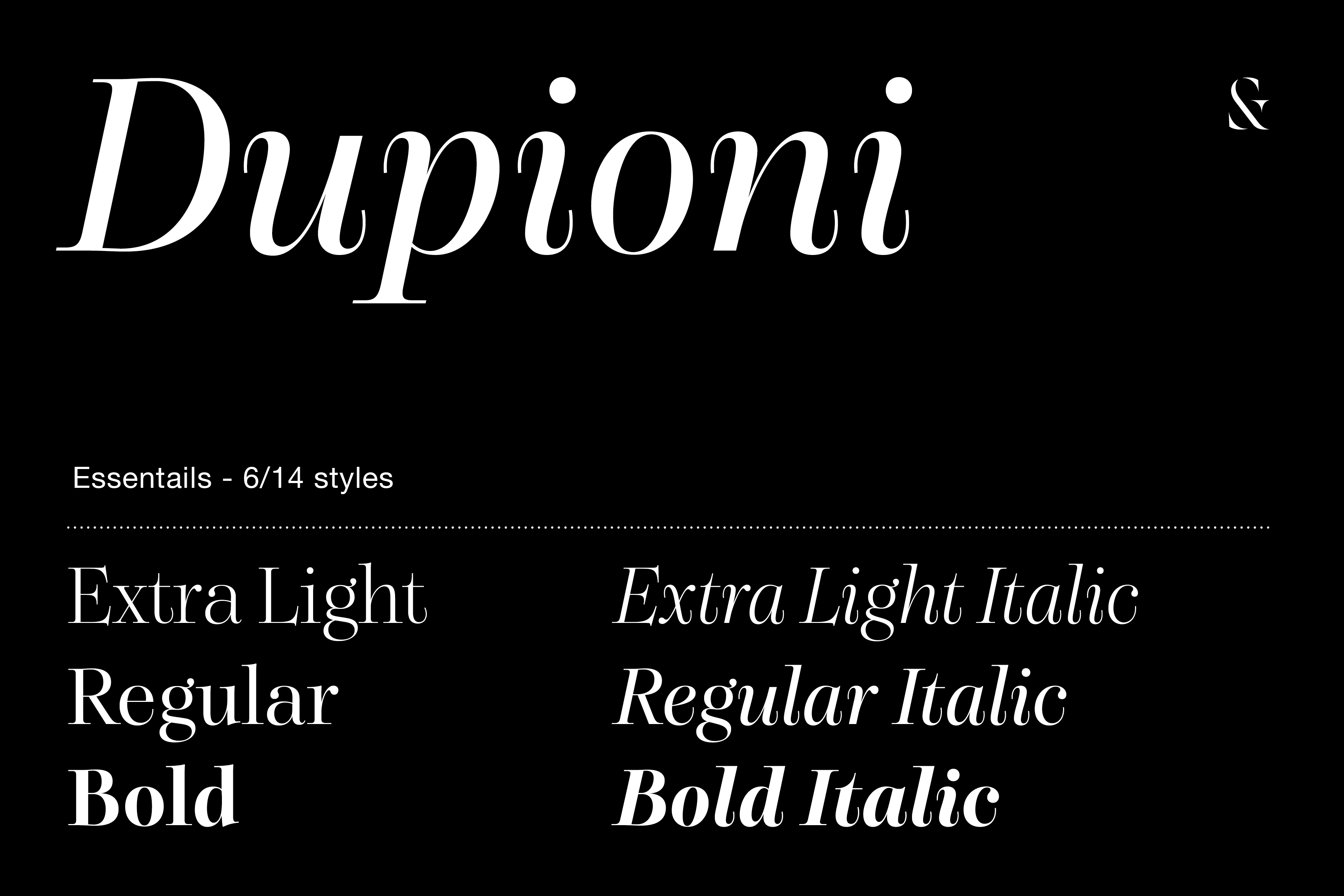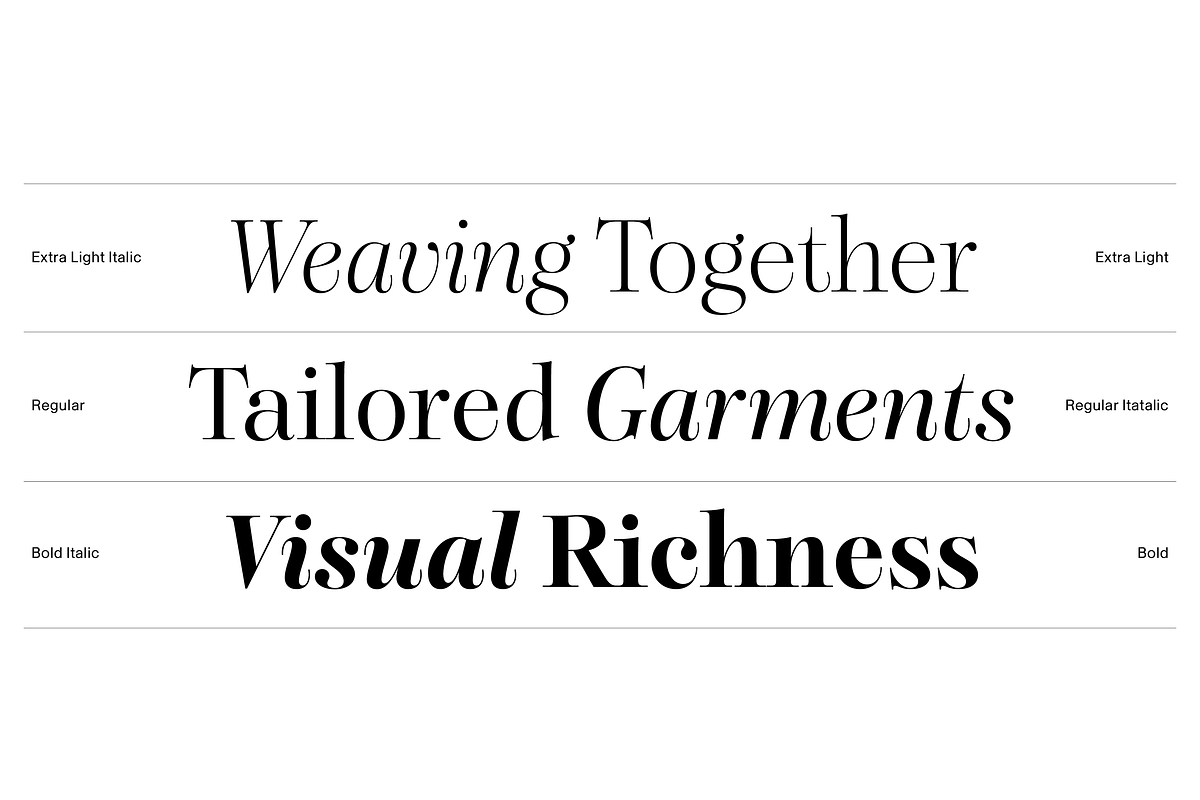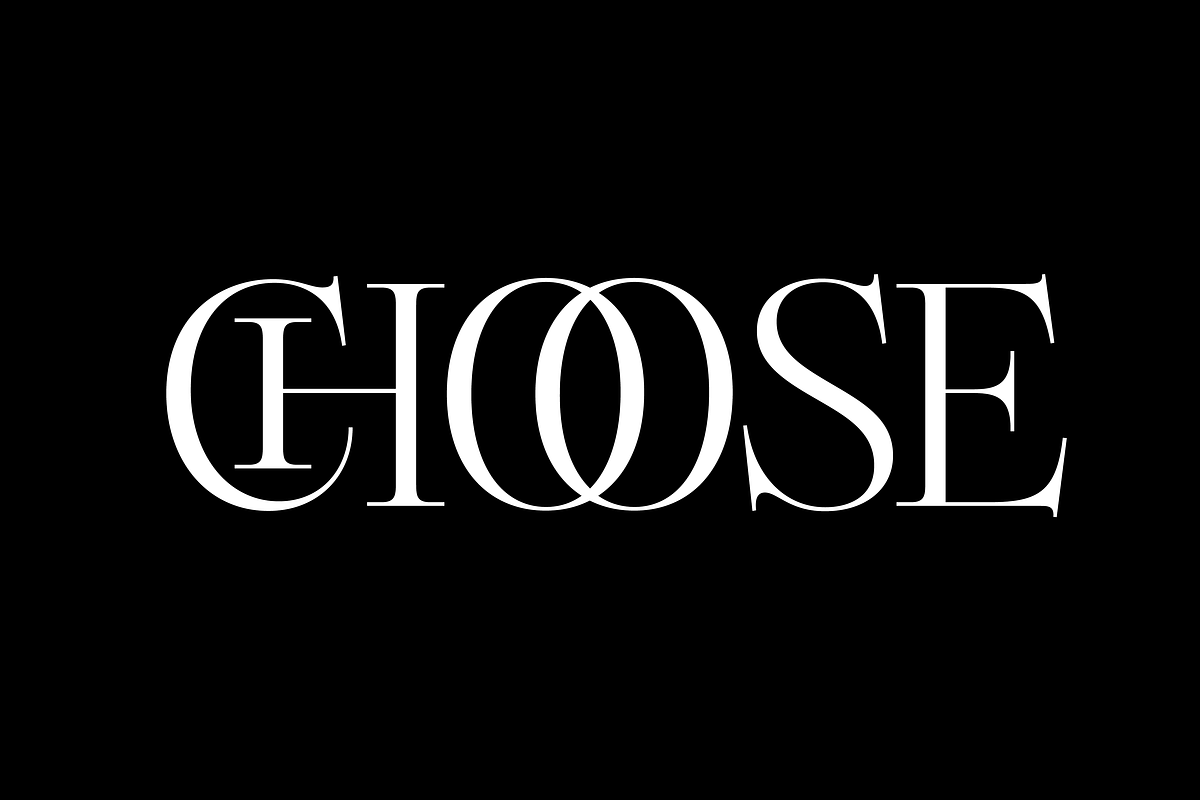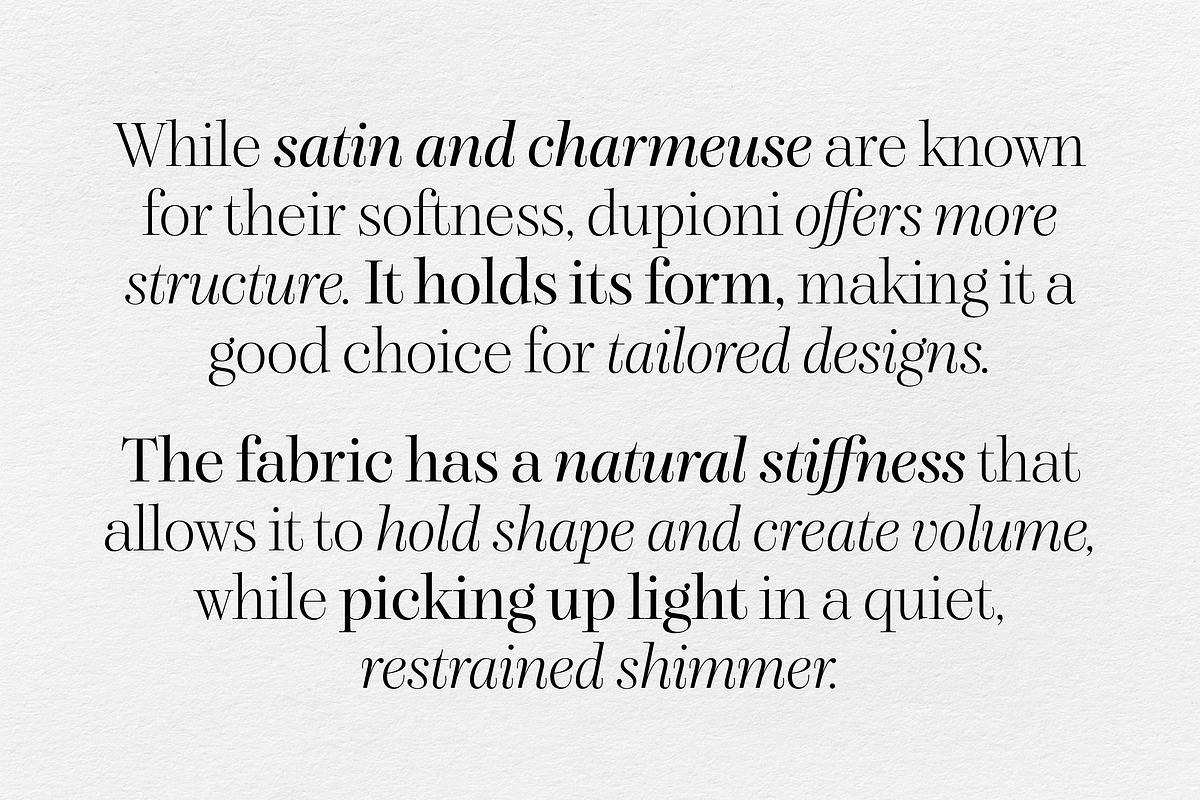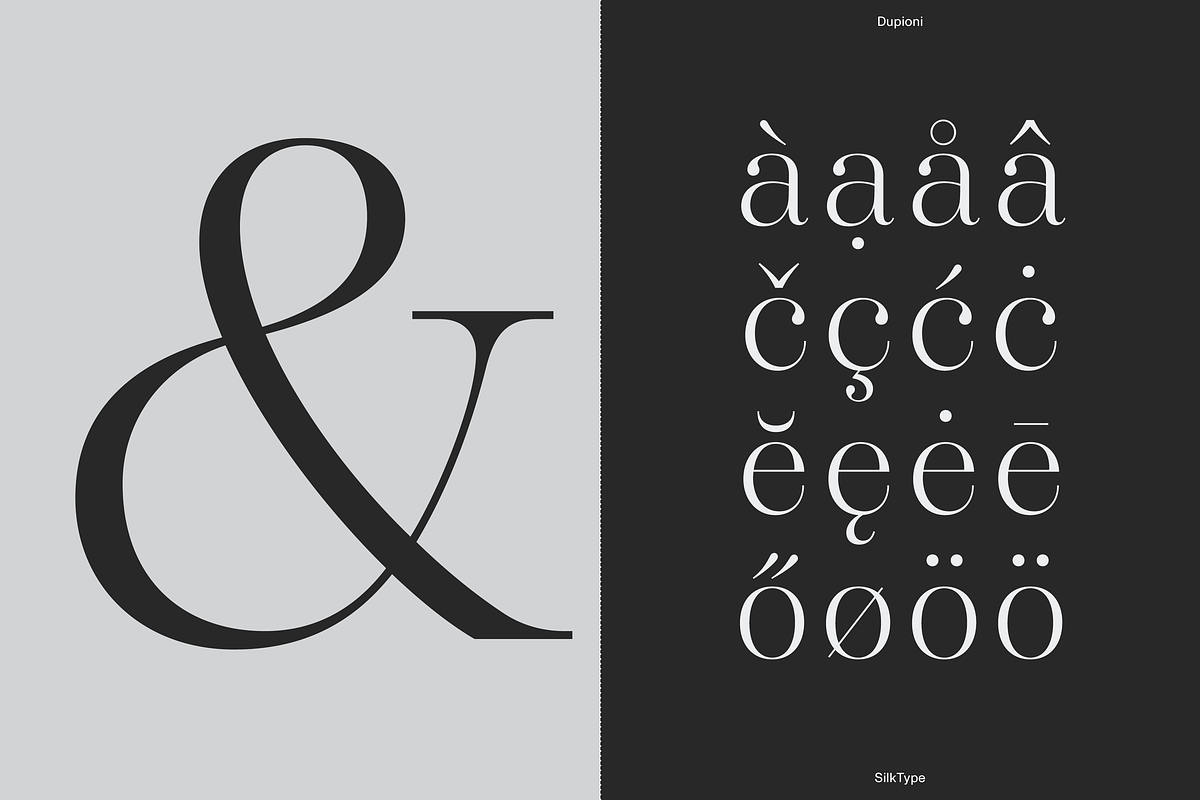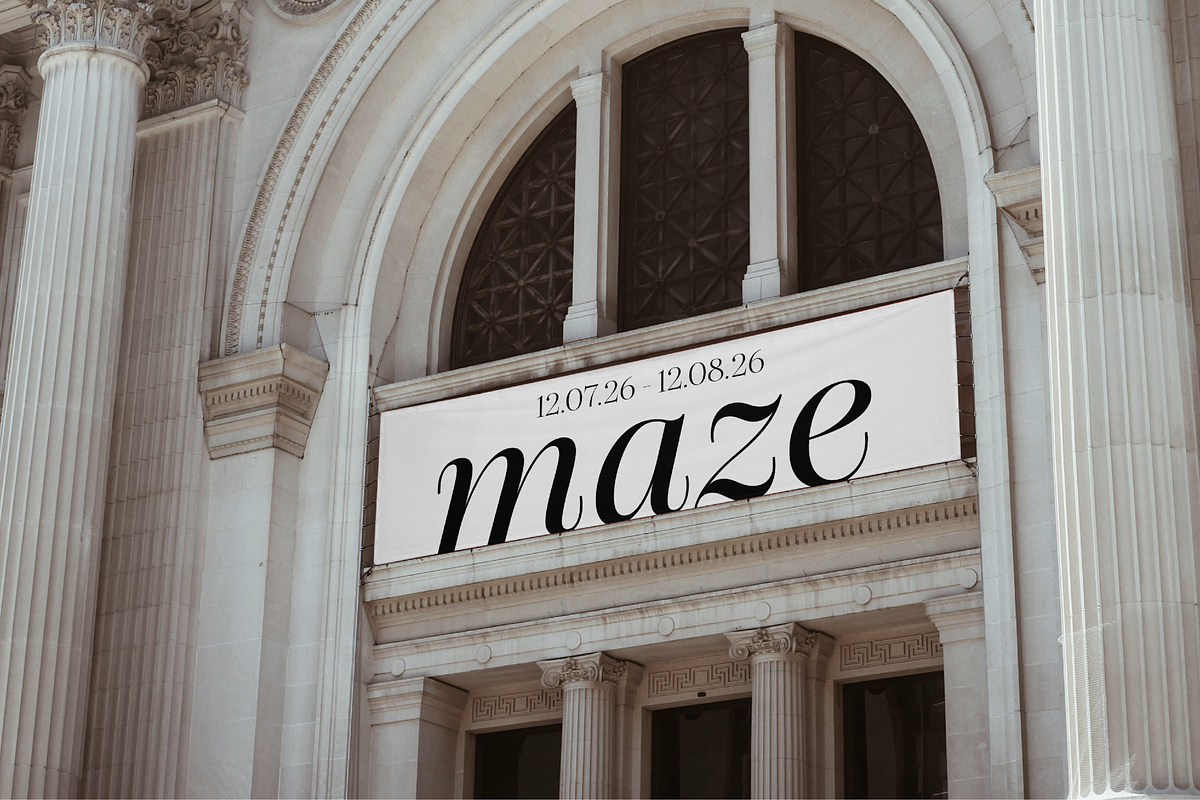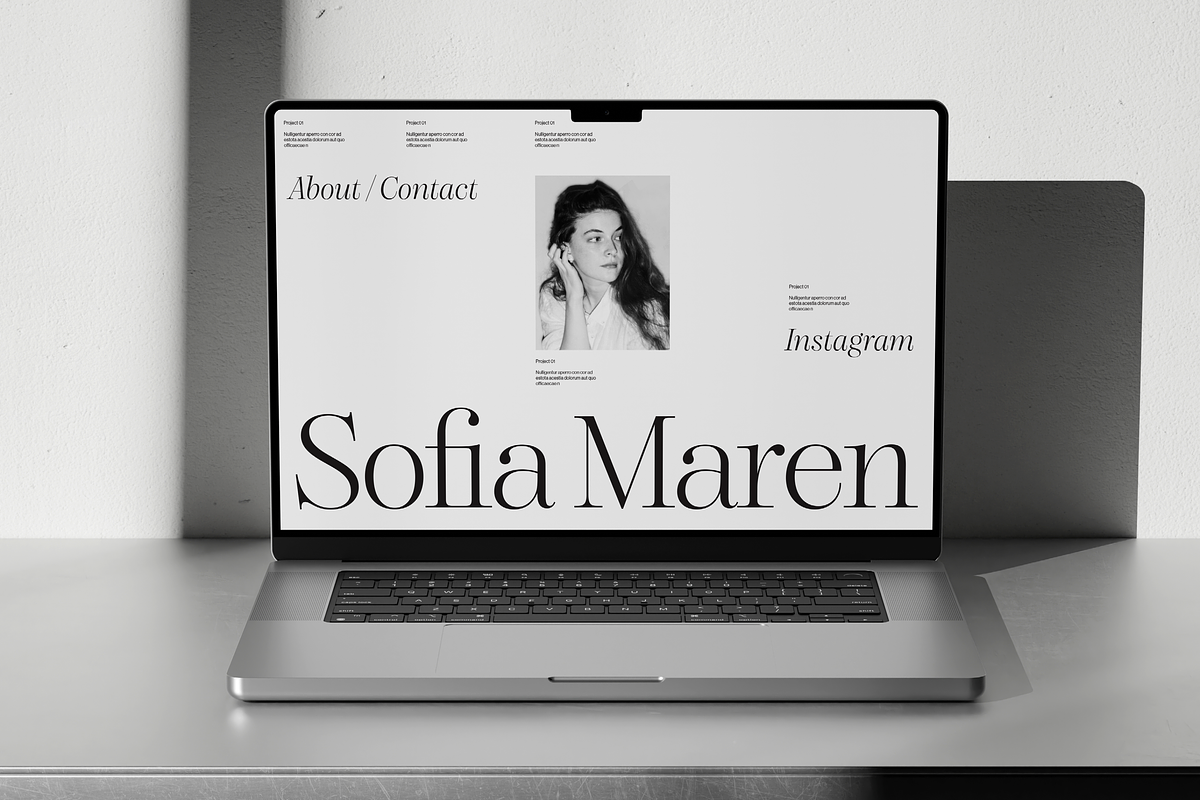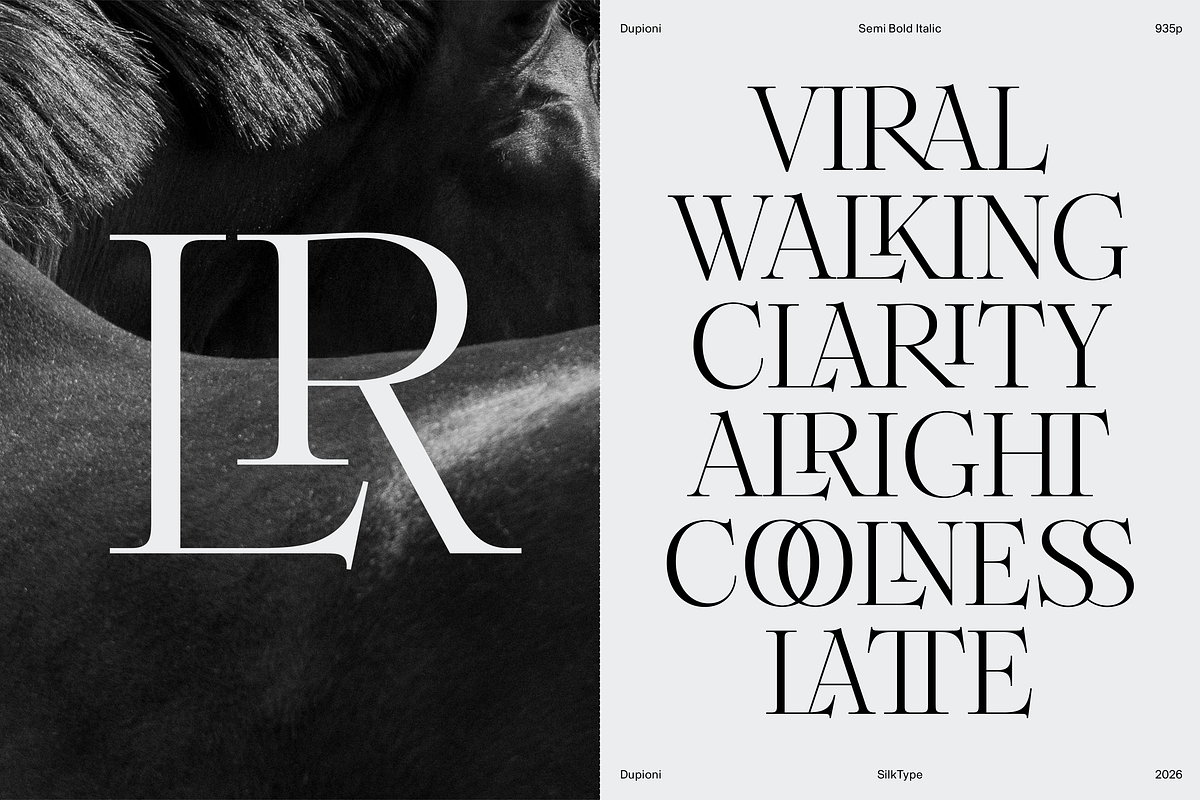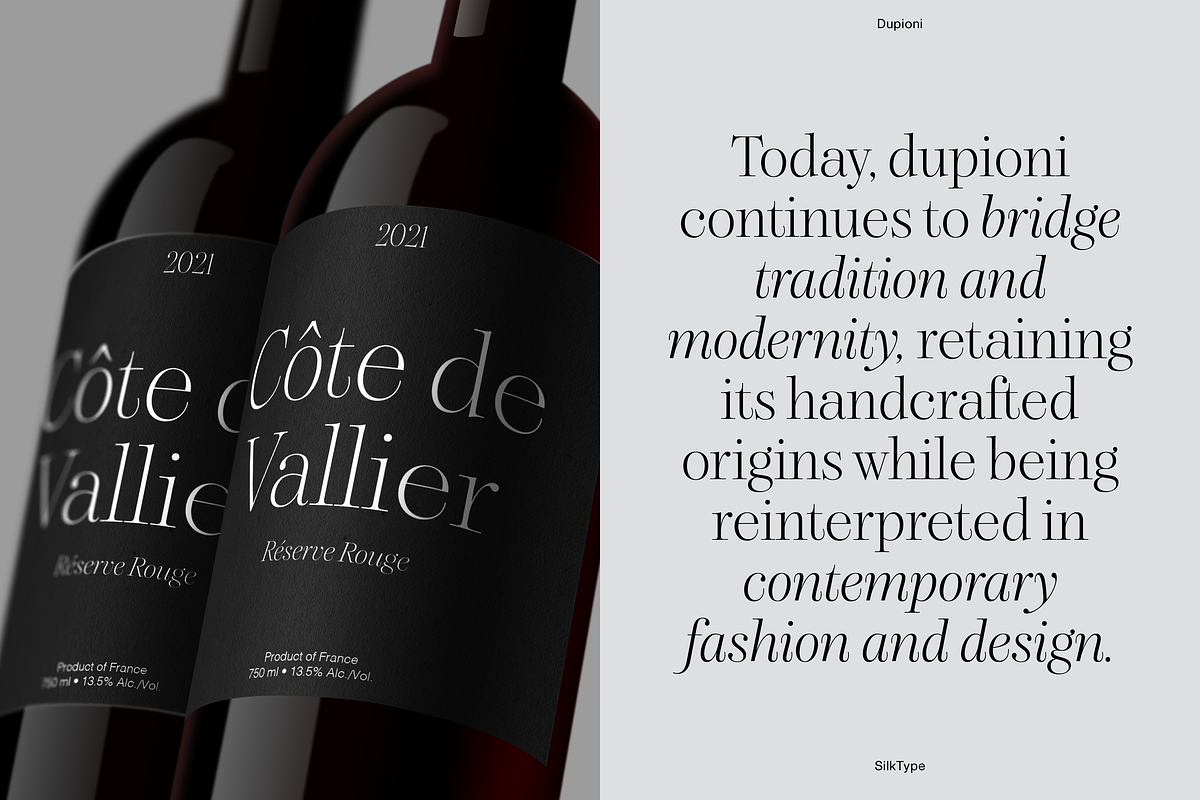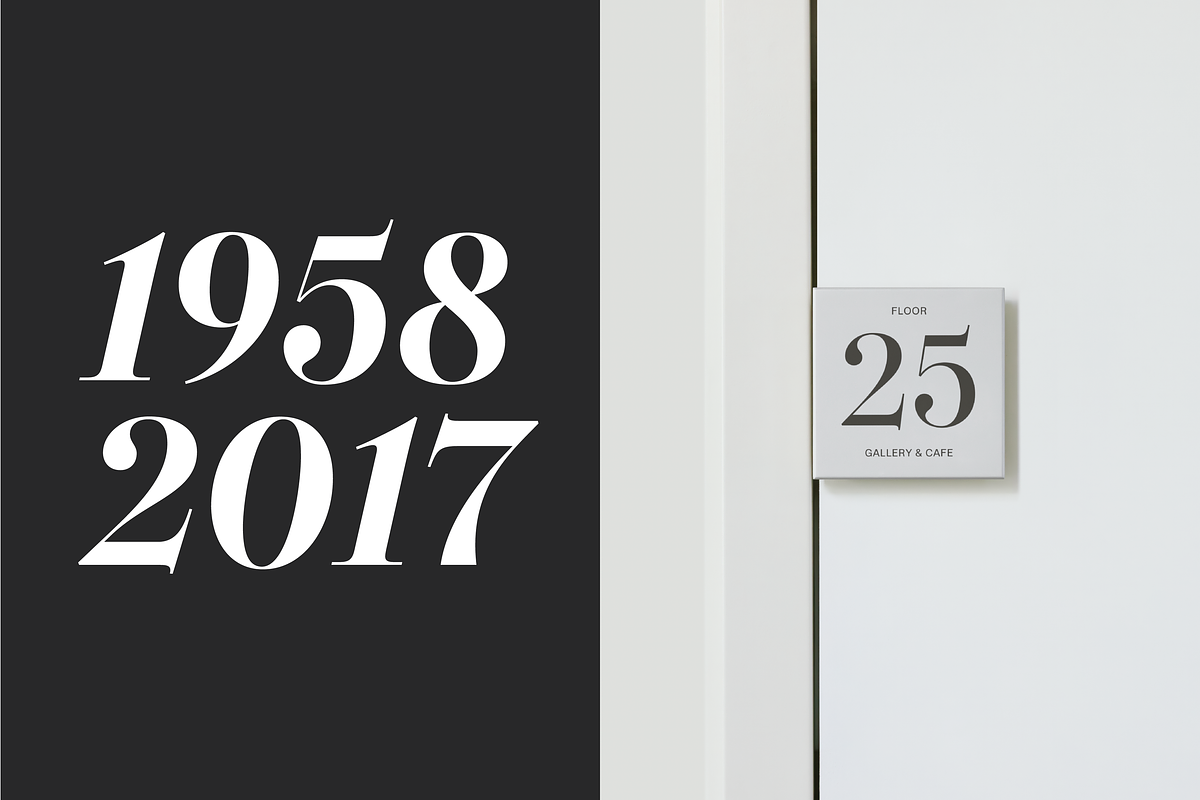
Dupioni - 6 font family
Dupioni is a high-contrast display typeface inspired by the silk fabric of the same name. Balancing structure, softness, and subtle irregularity. Sharp serifs, flowing italics, and refined contrast give the typeface a strong editorial presence across all 6 styles. Designed for fashion branding, packaging, editorials, and expressive typography, Dupioni moves between delicate and dramatic while maintaining clarity and control. The family also includes decorative ligatures, alternates, and extended language support, including Vietnamese.